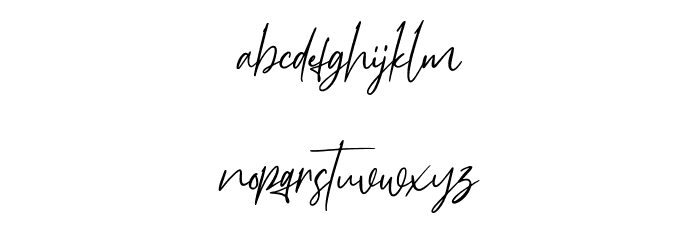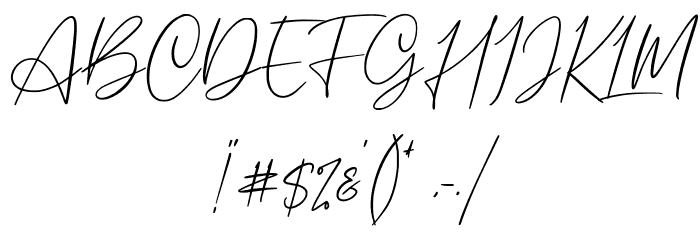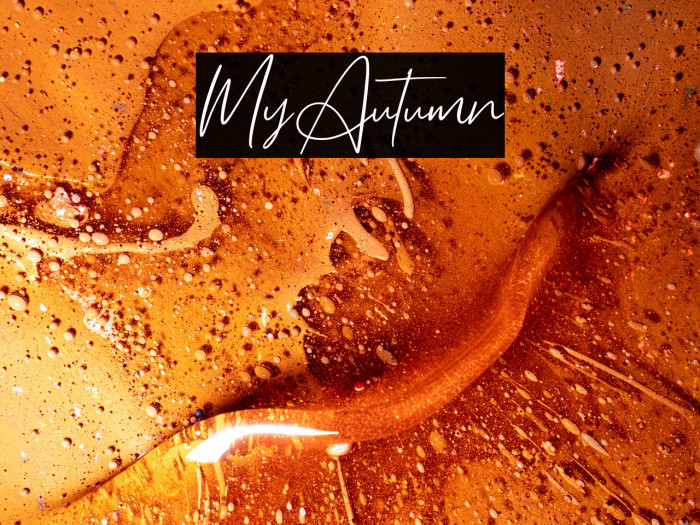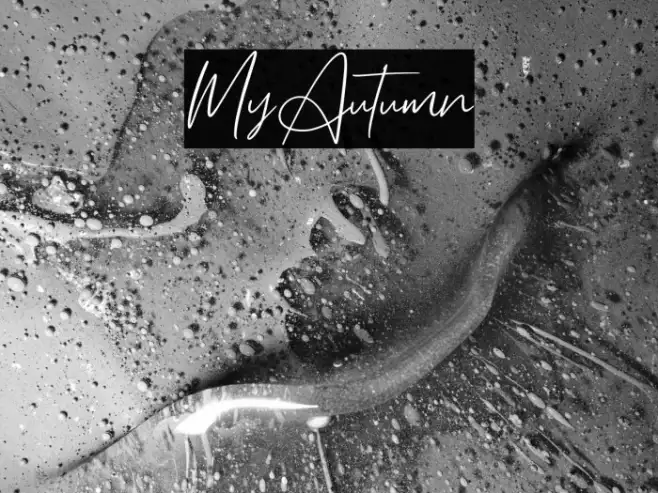
MyAutumn Font
This font exudes a sense of elegance and fluidity, characterized by its script style that mimics natural handwriting. The letters are interconnected with smooth, flowing strokes, creating a sense of continuity and grace. The uppercase letters are bold and prominent, while the lowercase letters maintain a delicate and refined appearance. The font features a high level of contrast between thick and thin strokes, adding to its dynamic and expressive nature. The special characters are designed to complement the overall style, maintaining the same fluidity and elegance. This font is ideal for projects that require a personal touch, such as invitations, greeting cards, or branding materials that aim to convey sophistication and creativity.
A fluid and elegant script font with high contrast and natural handwriting style.
- Proposed Projects: Ideal for wedding invitations, personal branding, greeting cards, and creative projects requiring a sophisticated touch.
- Overall Style: Elegant, Fluid, Expressive
- Use Case: Invitations, Greeting cards, Branding